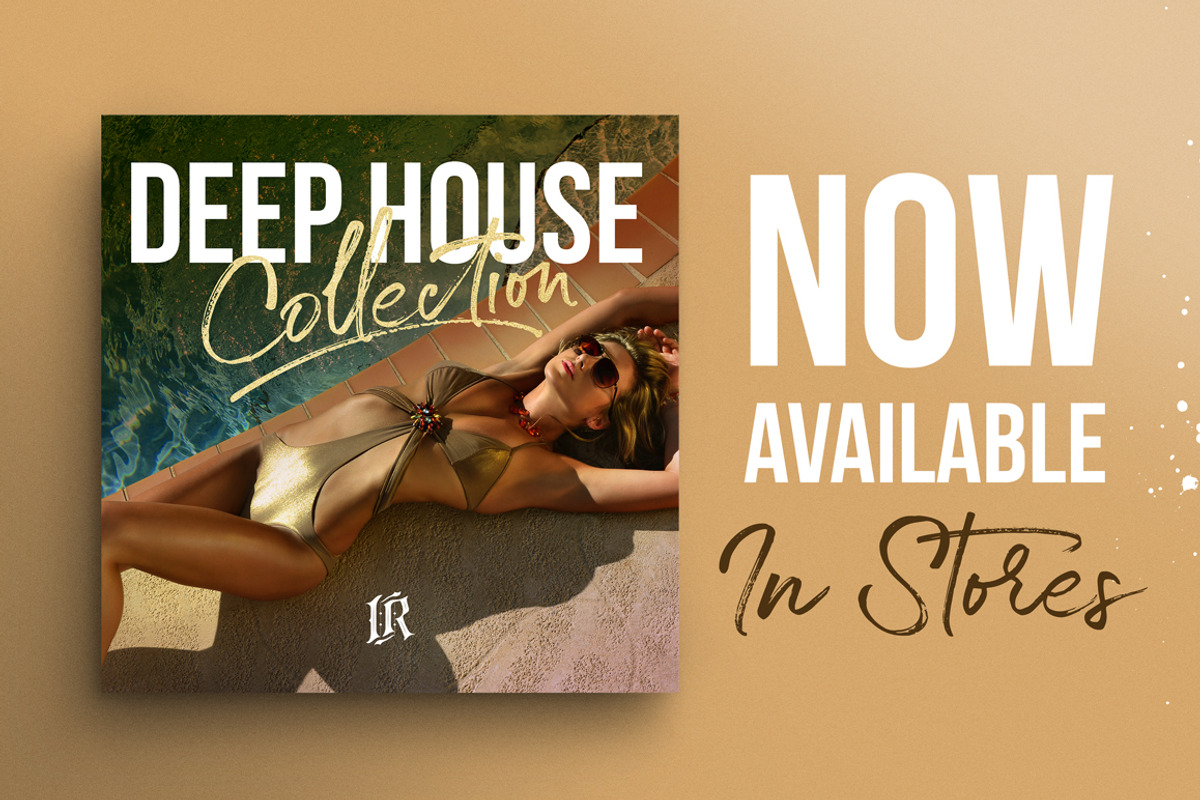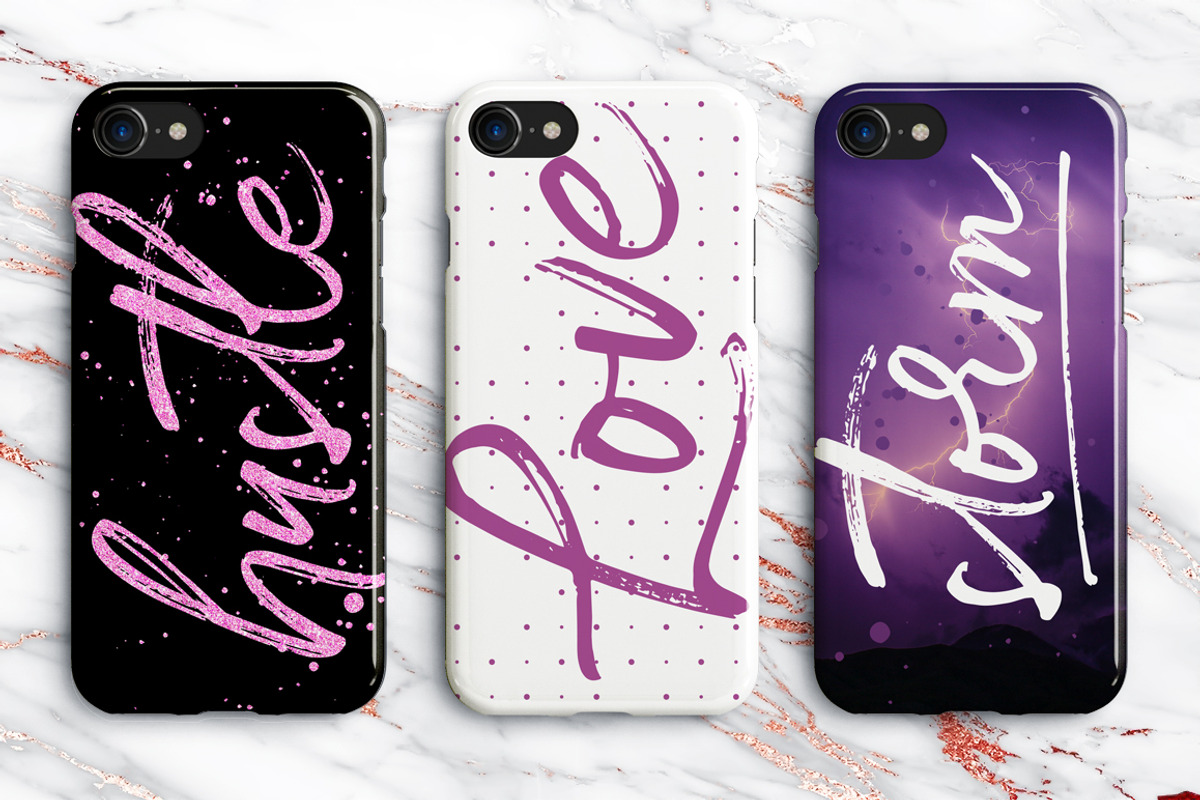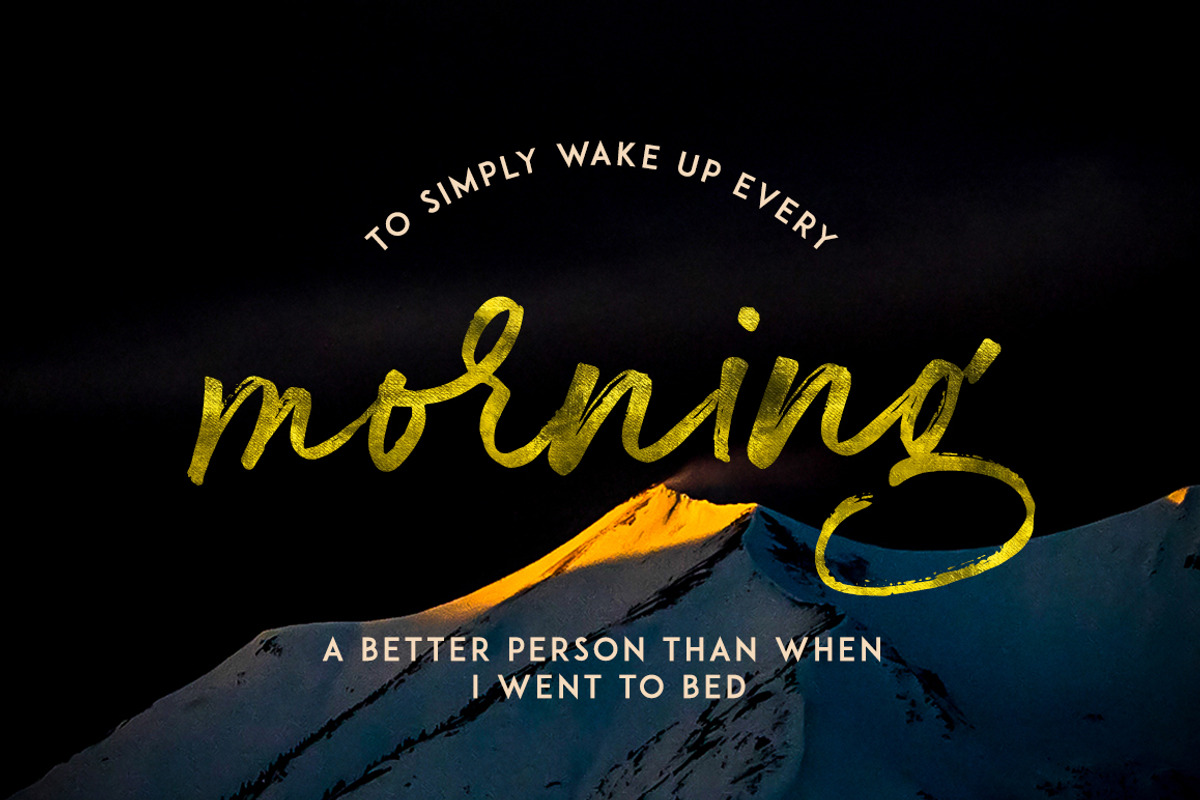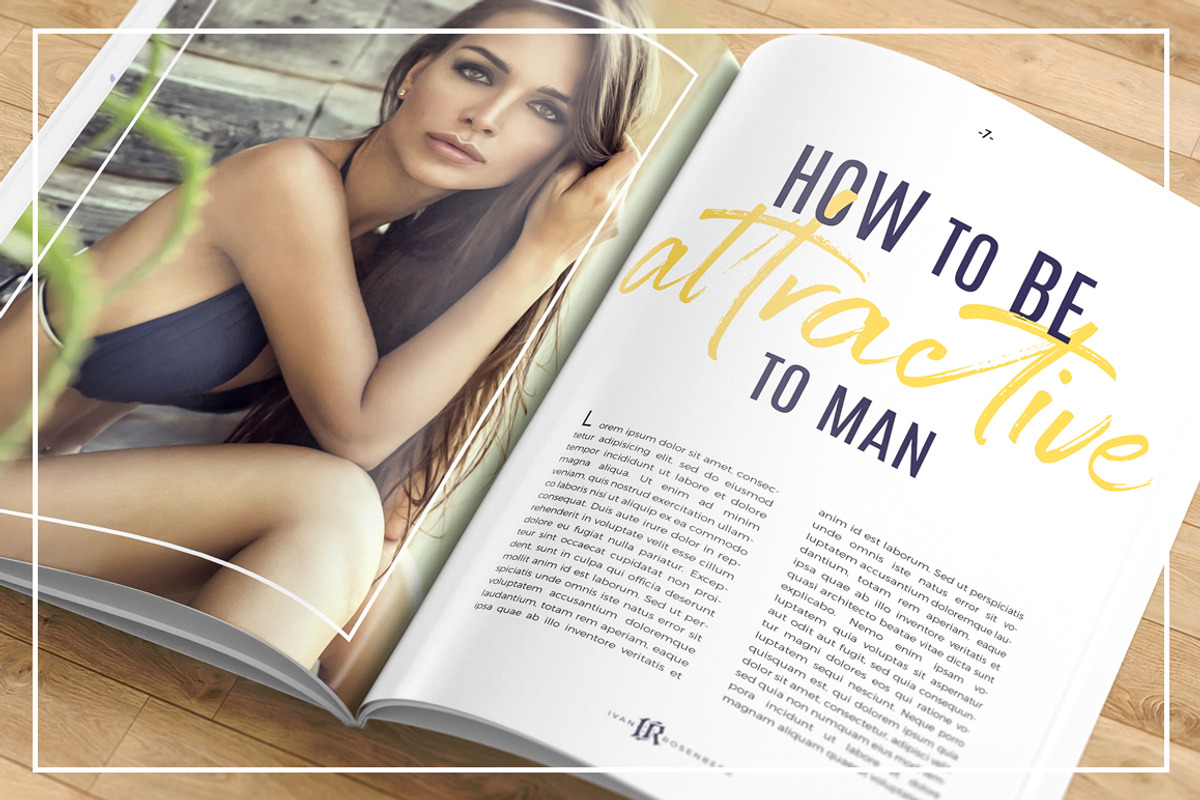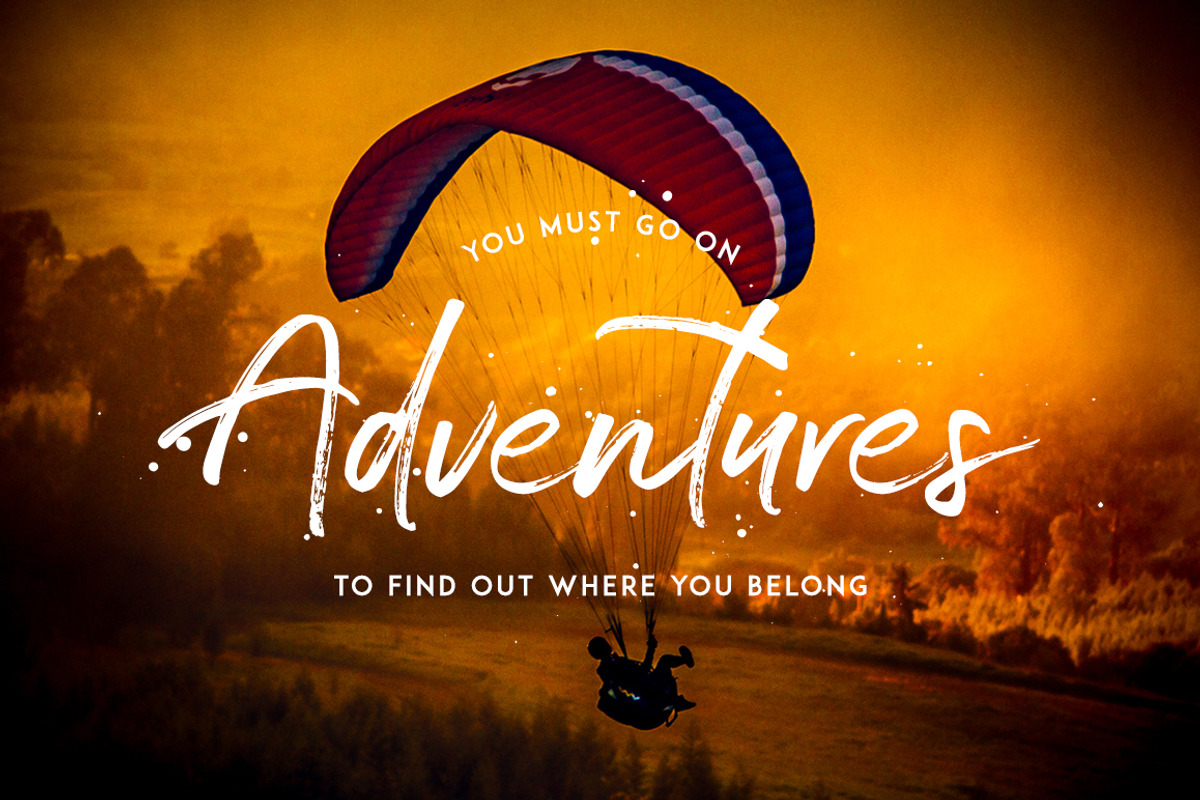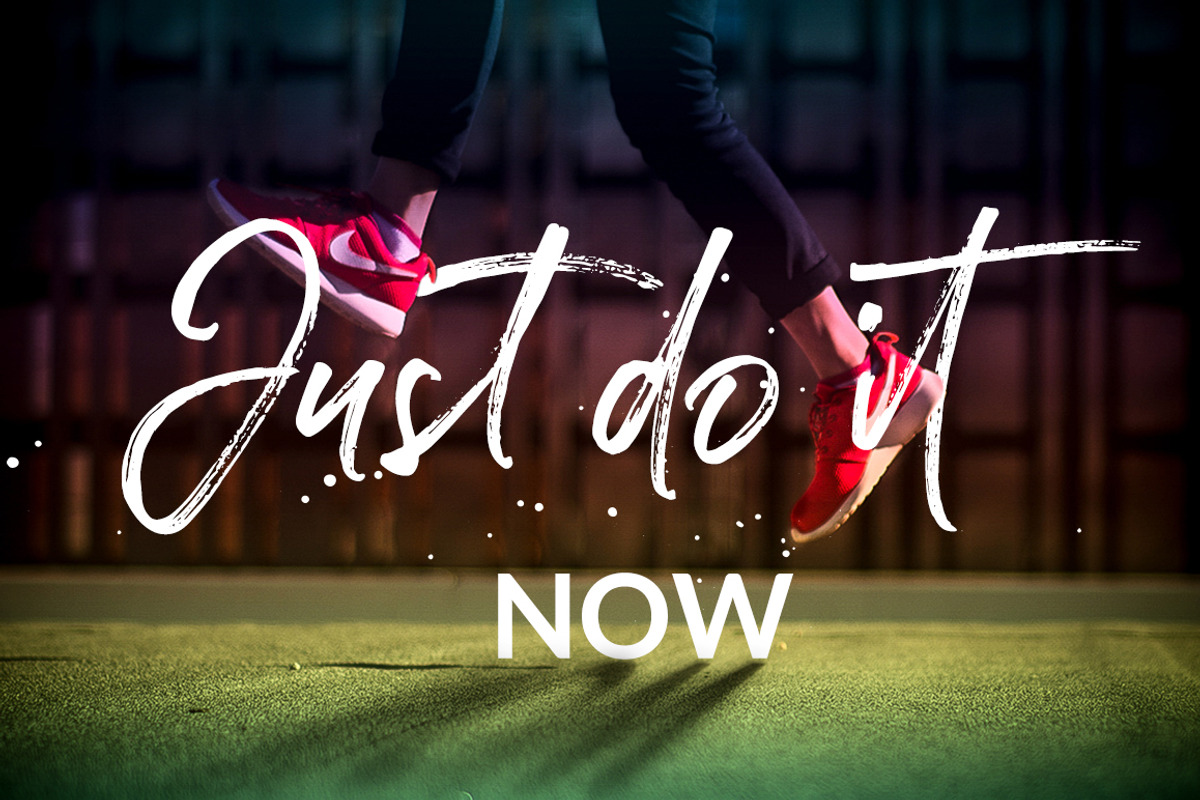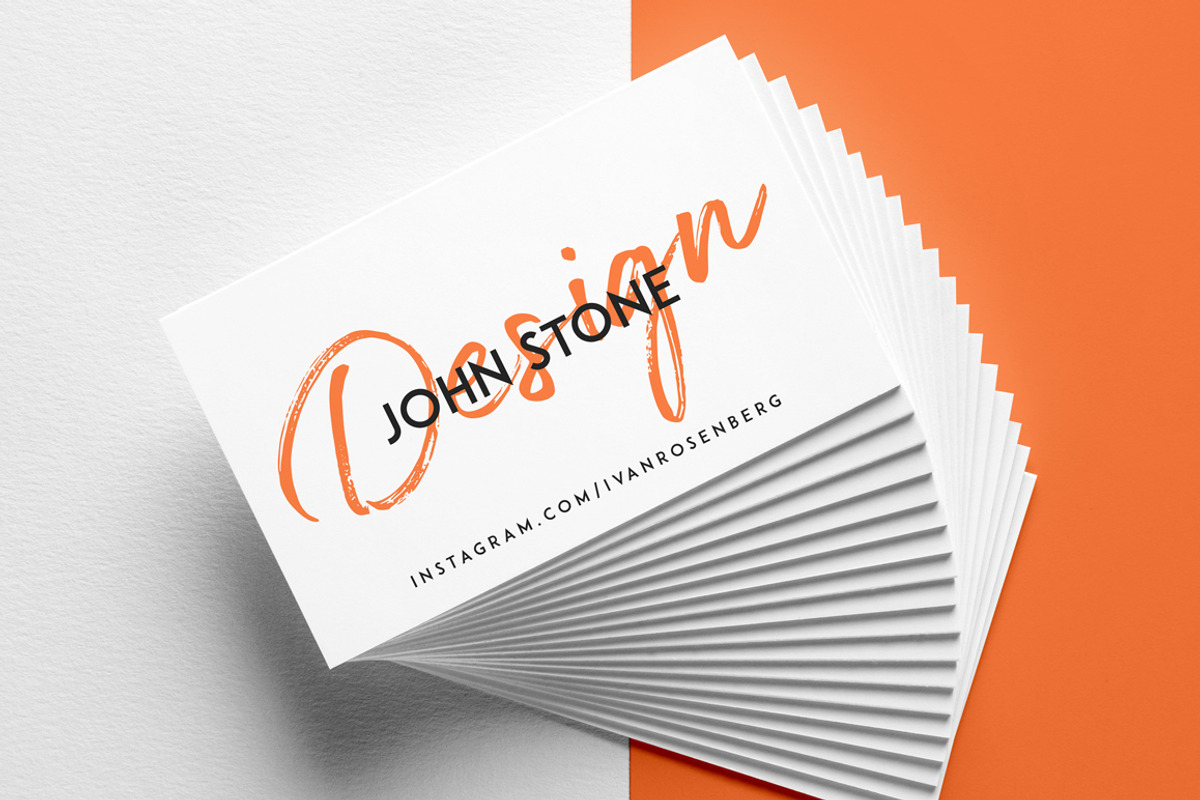
Gustavson Script Font
Gustavson Script Font by Ivan Rosenberg is a font selected for branding, posters, packaging, typography.
- This brush font comes with a complete set of lowercase and uppercase characters, a large range of punctuation ligatures, numerals and and mu
- Gustavson Font is hand brushed font with multilingual support.
Why Gustavson Script Font is worth a look
Gustavson Script Font by Ivan Rosenberg fits naturally into Branding, posters, packaging, typography.